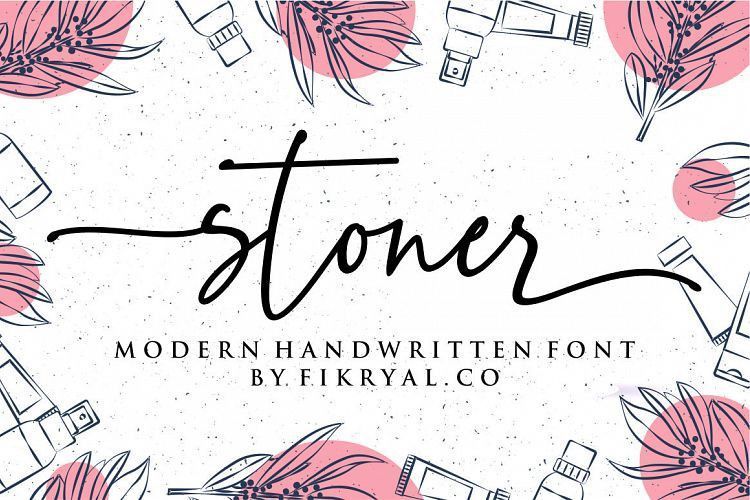
Stoner Script Font
Hello, friends. “Stoner Font” is script type with handwitten Style. Simply attach this classy, versatile and elegant handwritten font, to your special project, business or personal stuffs. Stoner designed and shared by fikryal. Stoner font is a new modern & stylish handwritten font.
I’ts perfect for logo,branding, invitation, tittle, wedding designs, social media posts, advertisements, product packaging, product designs, label, photography, watermark, special event,magazine,web design,etc.